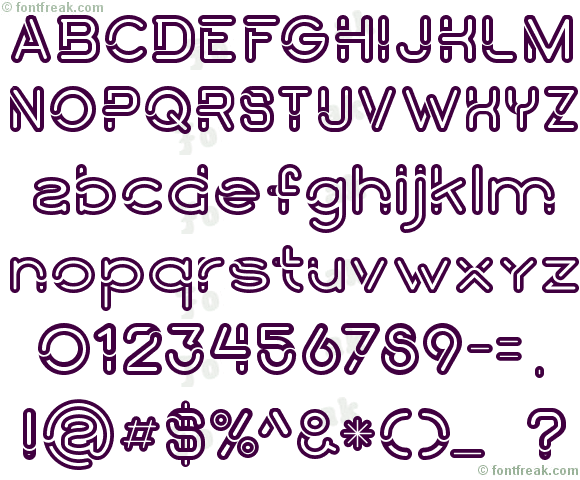
montanaboldline
montana bold line
Montanaboldline, designed by Peter Olexa in 2015, is a striking display font that captivates with its unique character and bold presence. This sans-serif typeface boasts a distinctive bold line style, giving it a modern yet playful aesthetic. The strokes are thick and uniform, creating a strong visual impact. The font's rounded edges provide a friendly appearance, while the consistent spacing between letters ensures clarity and legibility, making it suitable for various applications.
This versatile font is perfect for a range of creative projects. It excels in producing eye-catching movie posters, where its boldness can effectively draw attention to titles and key information. Additionally, montanaboldline is an excellent choice for restaurant menus, offering a contemporary feel that can enhance the dining experience. It also shines in branding materials for small businesses, allowing logos and promotional content to stand out. For content creators, this font can add a distinctive flair to social media graphics, ensuring that posts are memorable and engaging.
Targeting graphic designers, small business owners, and content creators, montanaboldline appeals to those seeking a modern font that can elevate their work. Its freeware license also makes it easily accessible, allowing users to incorporate this font into their projects without any financial constraints.
What sets montanaboldline apart is its ability to combine boldness with a sense of approachability. The harmonious blend of thick lines and rounded forms creates a font that feels both contemporary and inviting. Whether you are designing for print or digital media, the montanaboldline font free download offers a unique opportunity to enhance your designs with a distinctive touch. Embrace this font to make a lasting impression in your creative endeavors.